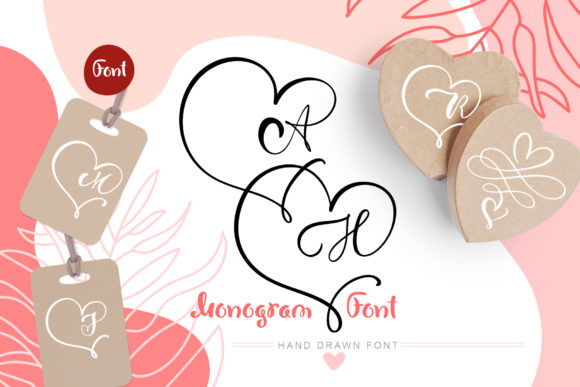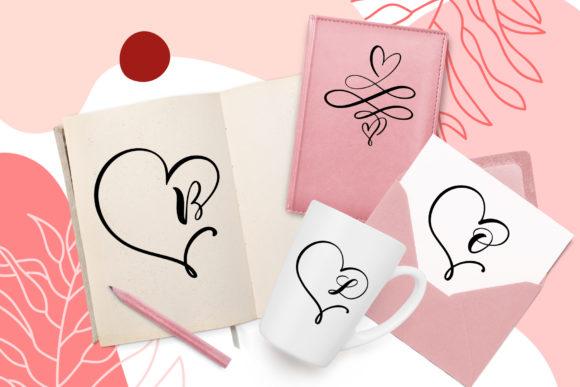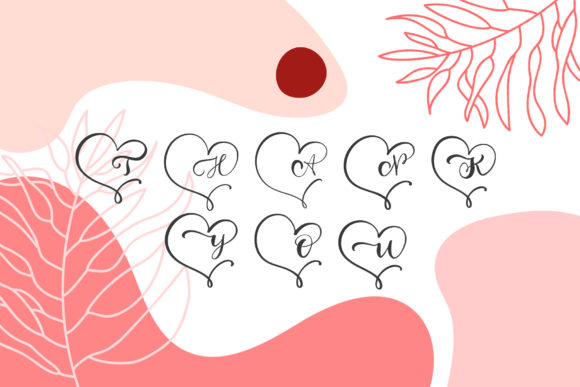
Monogram Font
Monogram Font includes unique swirly letters in the form of hearts. They will add the feeling of love to any crafting idea, be it wedding or holiday crafts, Valentine’s greeting cards, logos, invitations, and much more! Its elegant calligraphic lines will add a fresh touch in an instant.